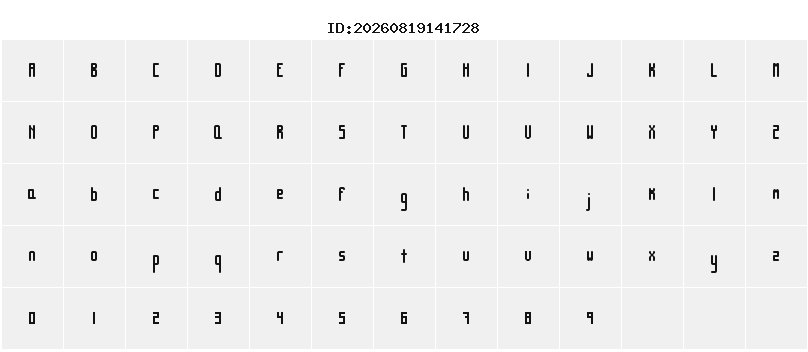
• Font Name: Simple Sans
• Full Font Name: Simple Sans Regular
• Designer: aquaaditi
• Description: “Simple Sans” was built with FontStruct
About Simple Sans.ttf
Simple Sans.ttf is a modern, elegant sans-serif font designed for ultimate readability and visual harmony. Perfect for branding, headlines, web design, and print materials.